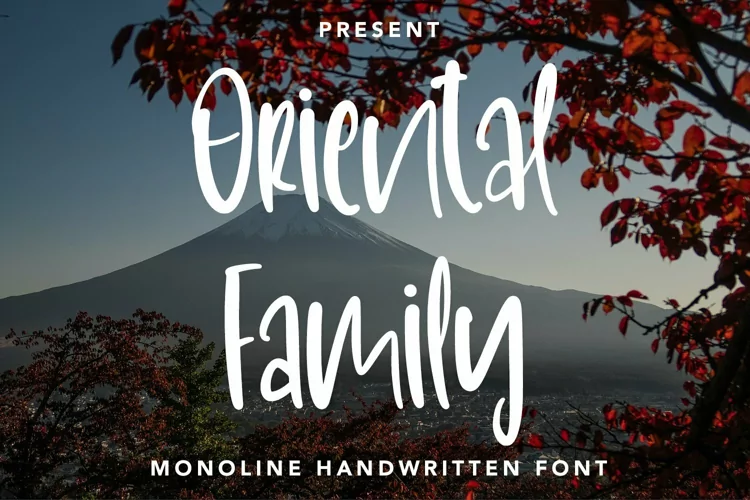
Web Font OrientalFamily - Monoline Handwritten Font
OrientalFamily - Monoline Handwritten Font that contain lowercase, uppercase, symbol, and also support multi language. There’s a lot ligatures in this font. This Font also comes with ligatures, alternates and many more. this font suitable for fashion, branding, catalog and other design what you want.